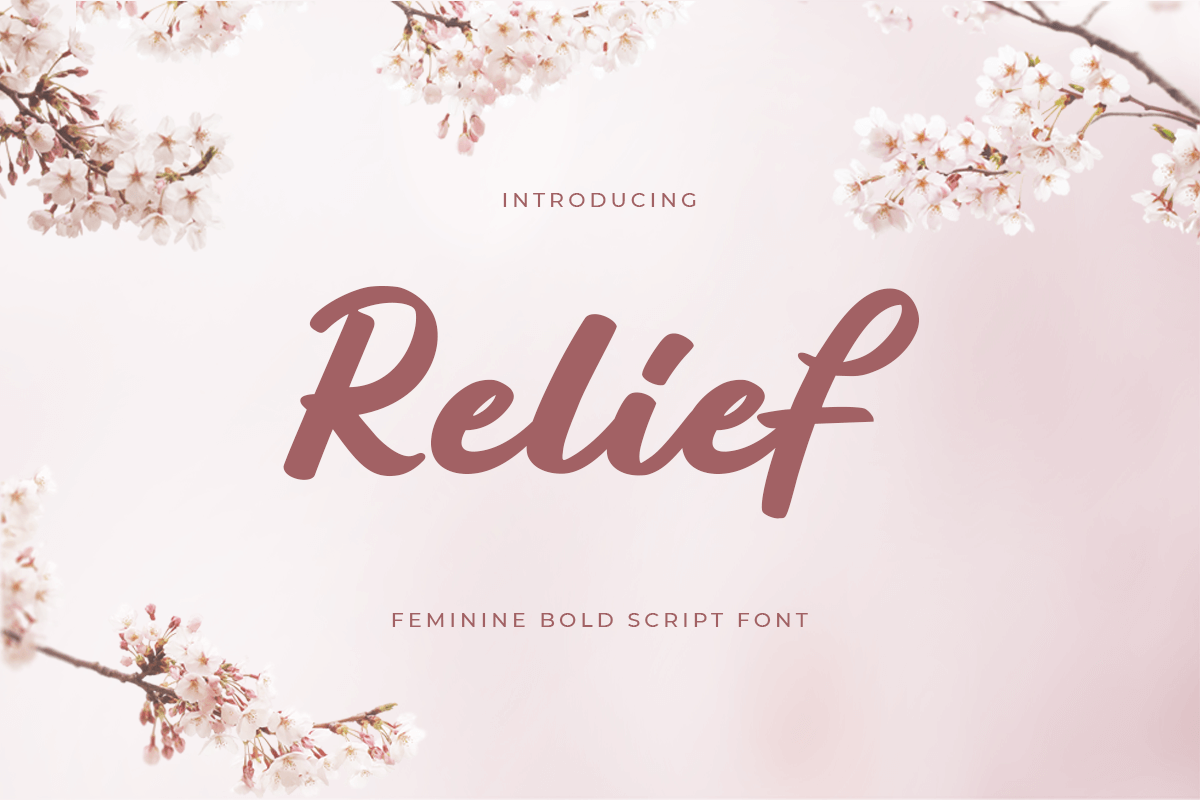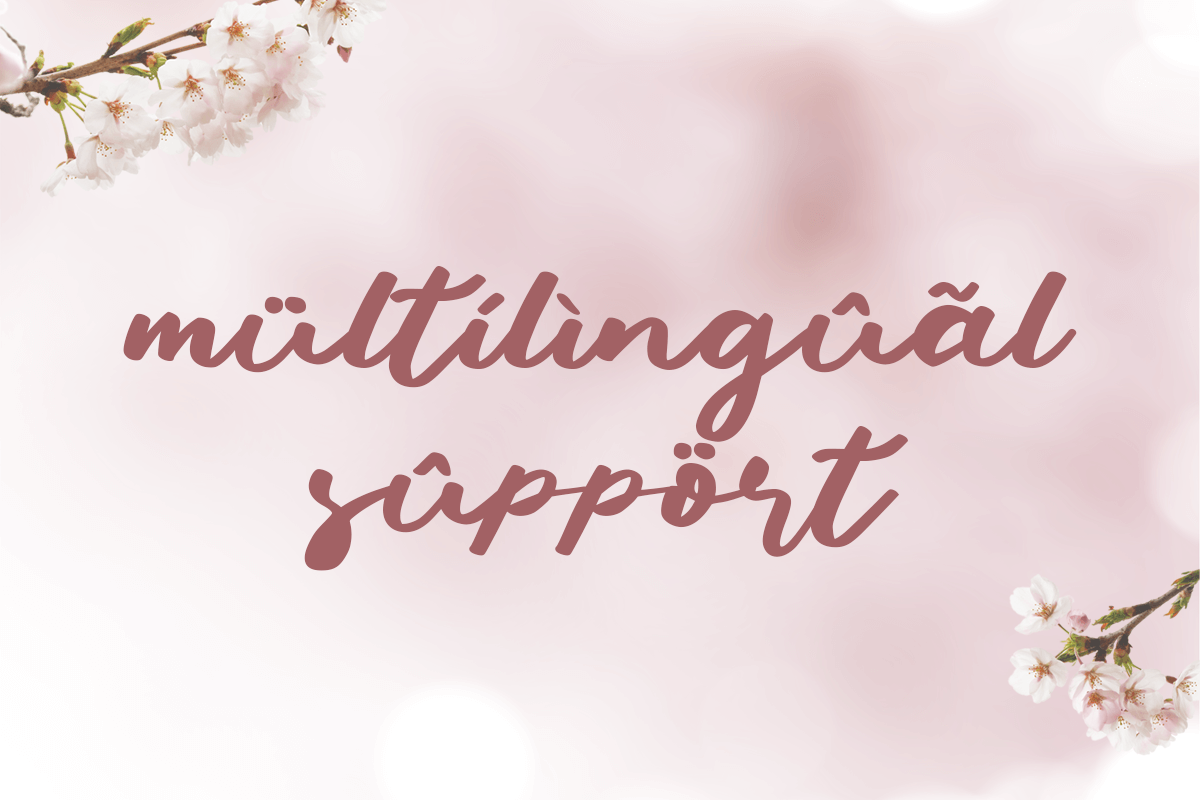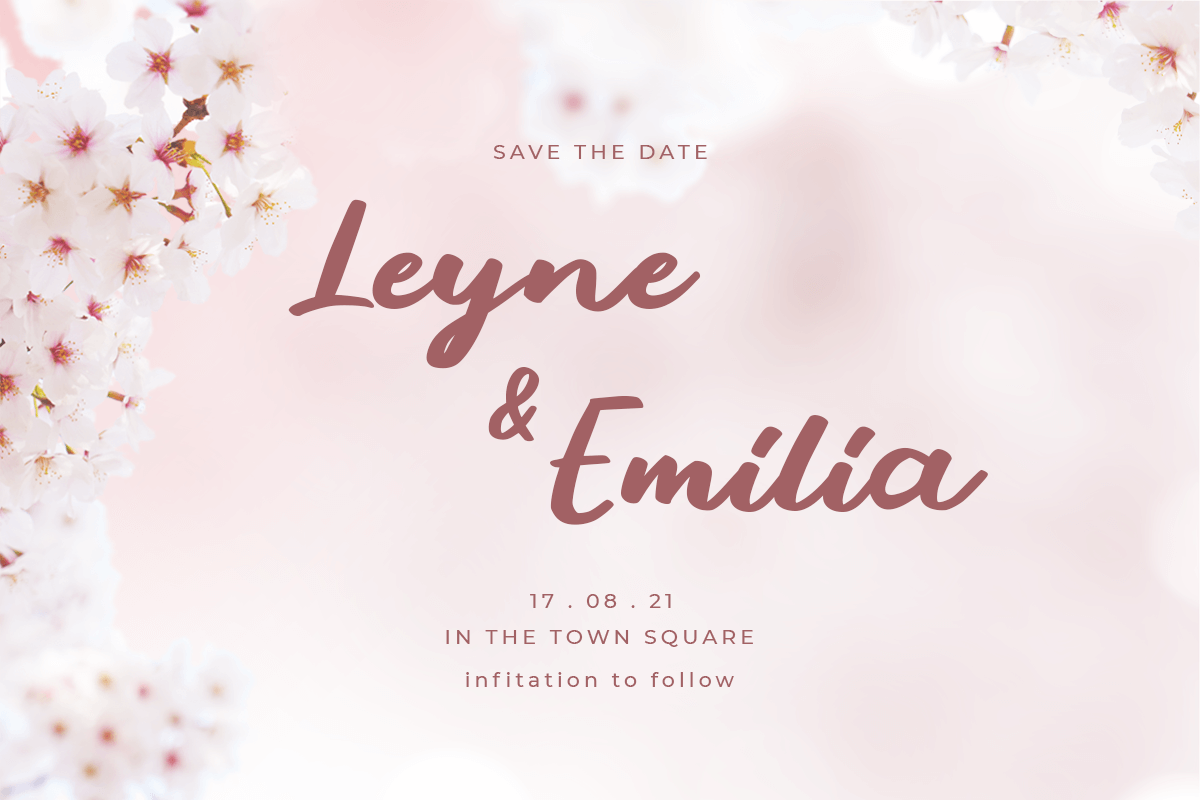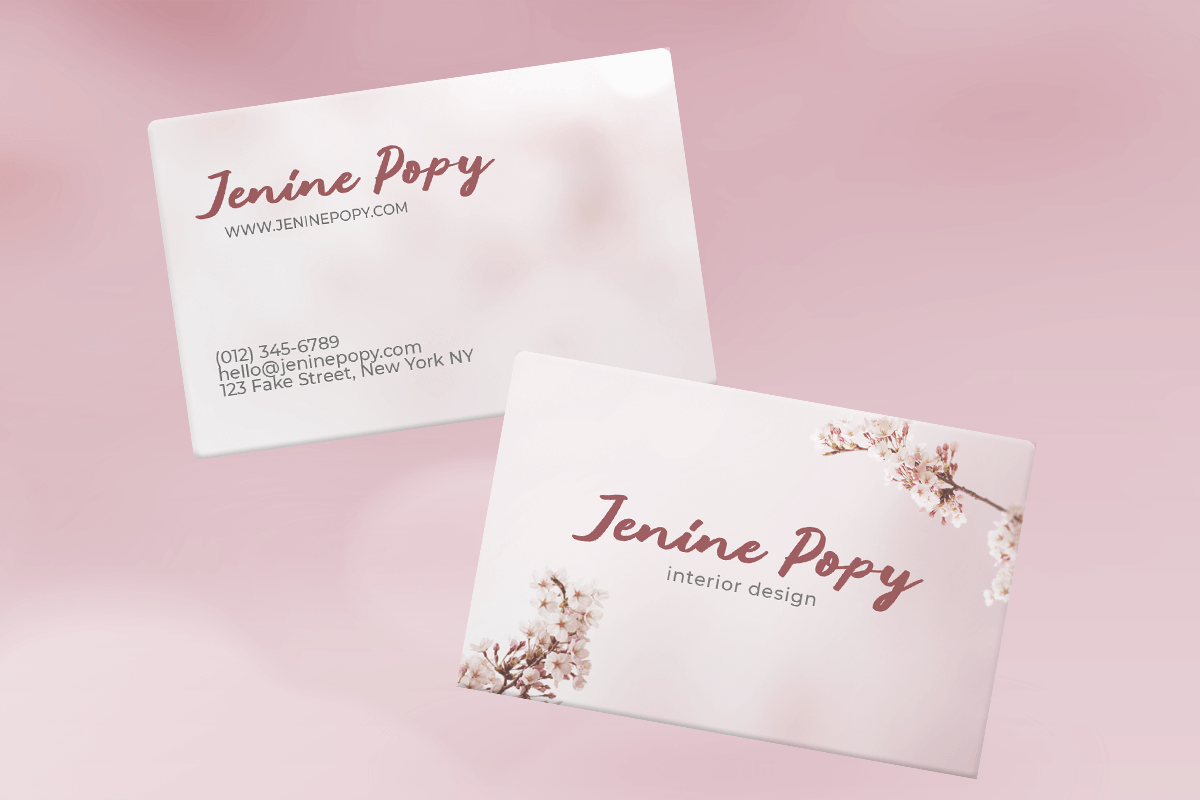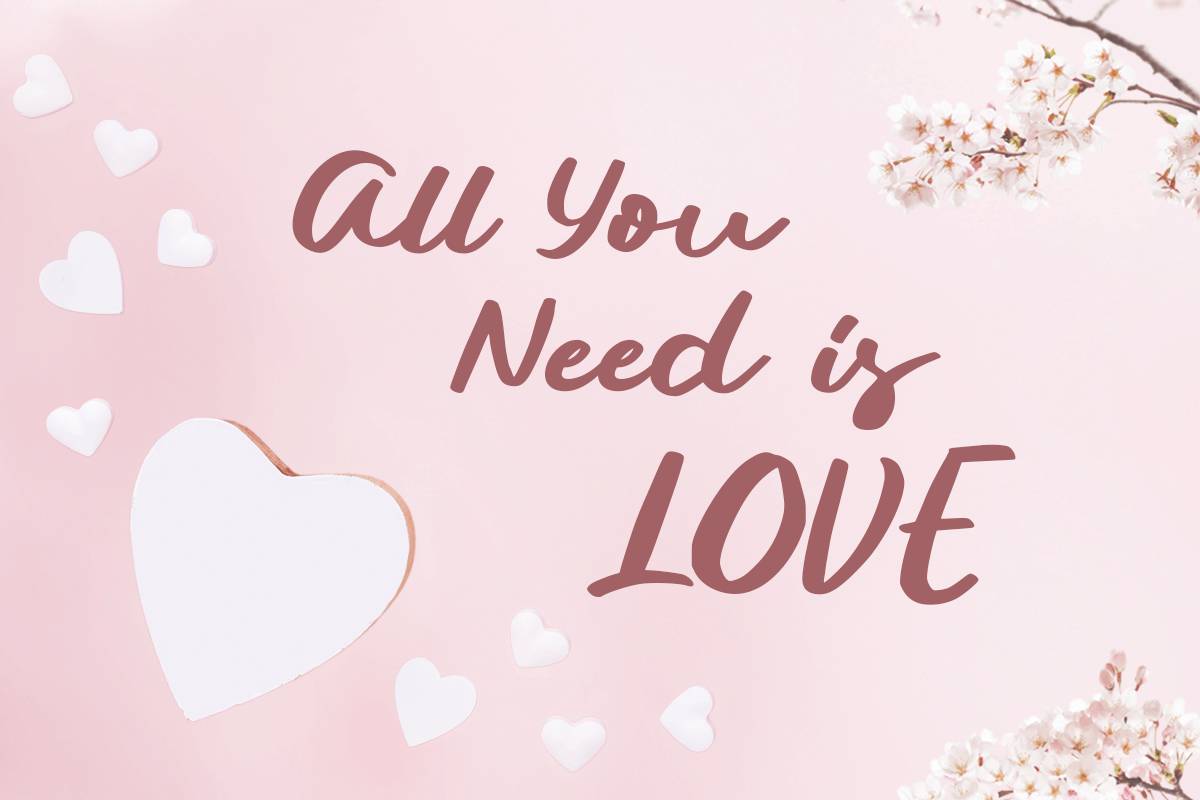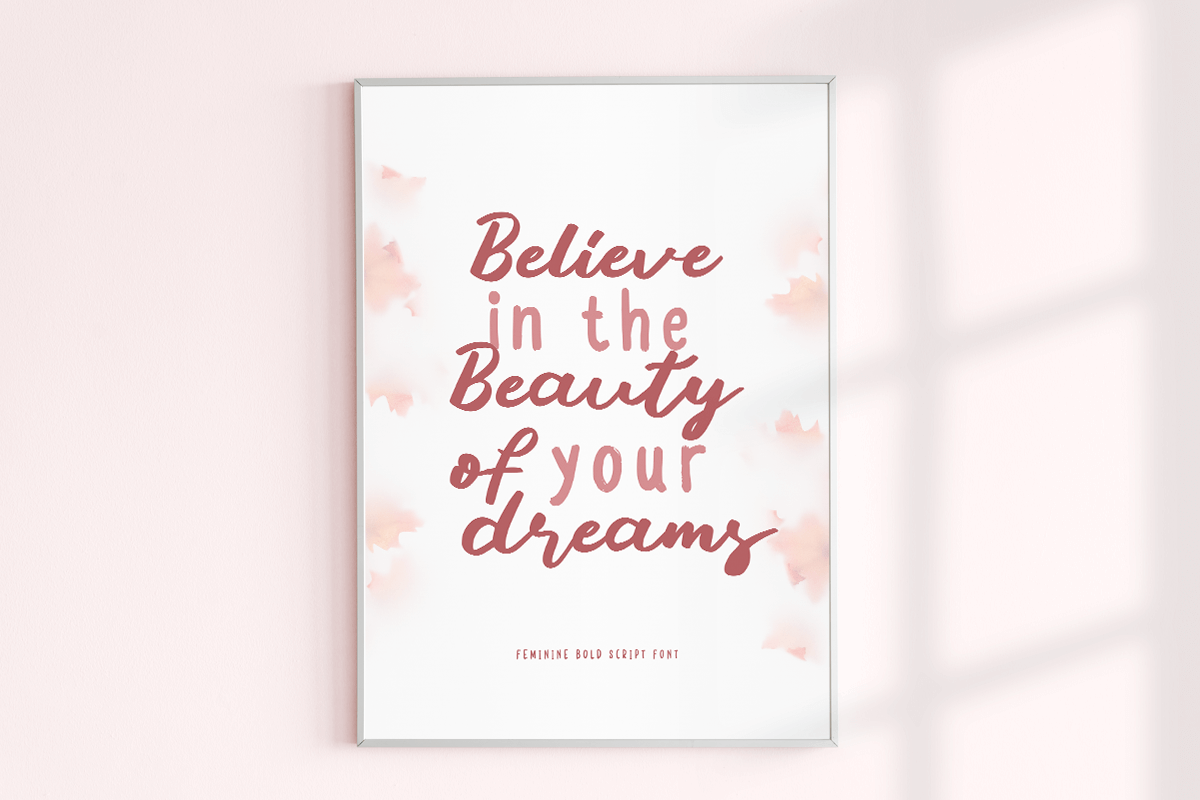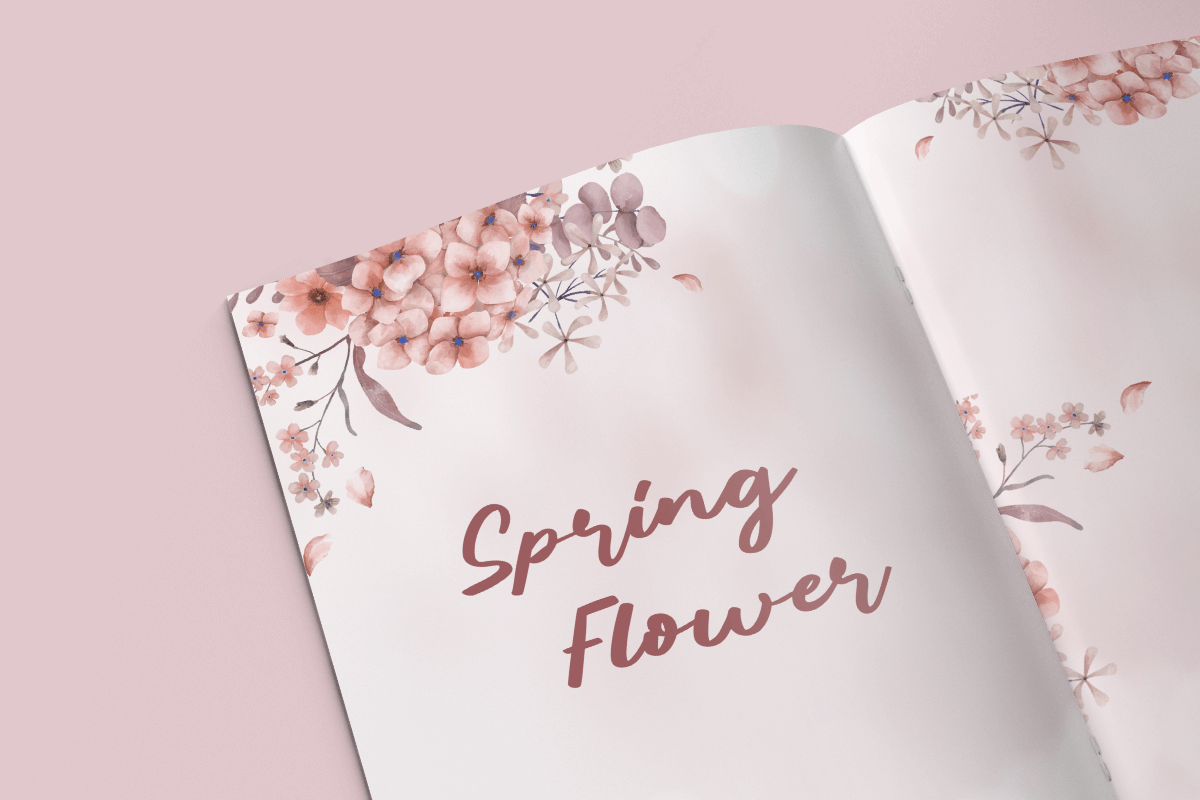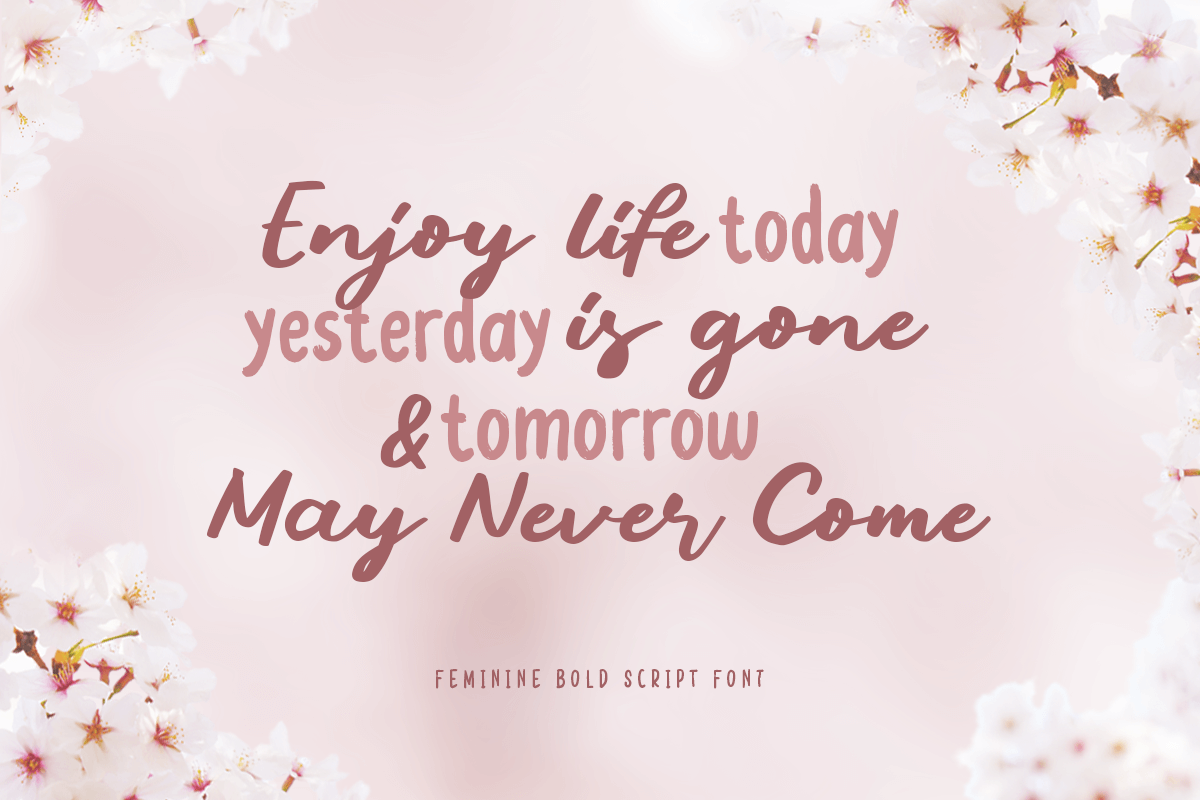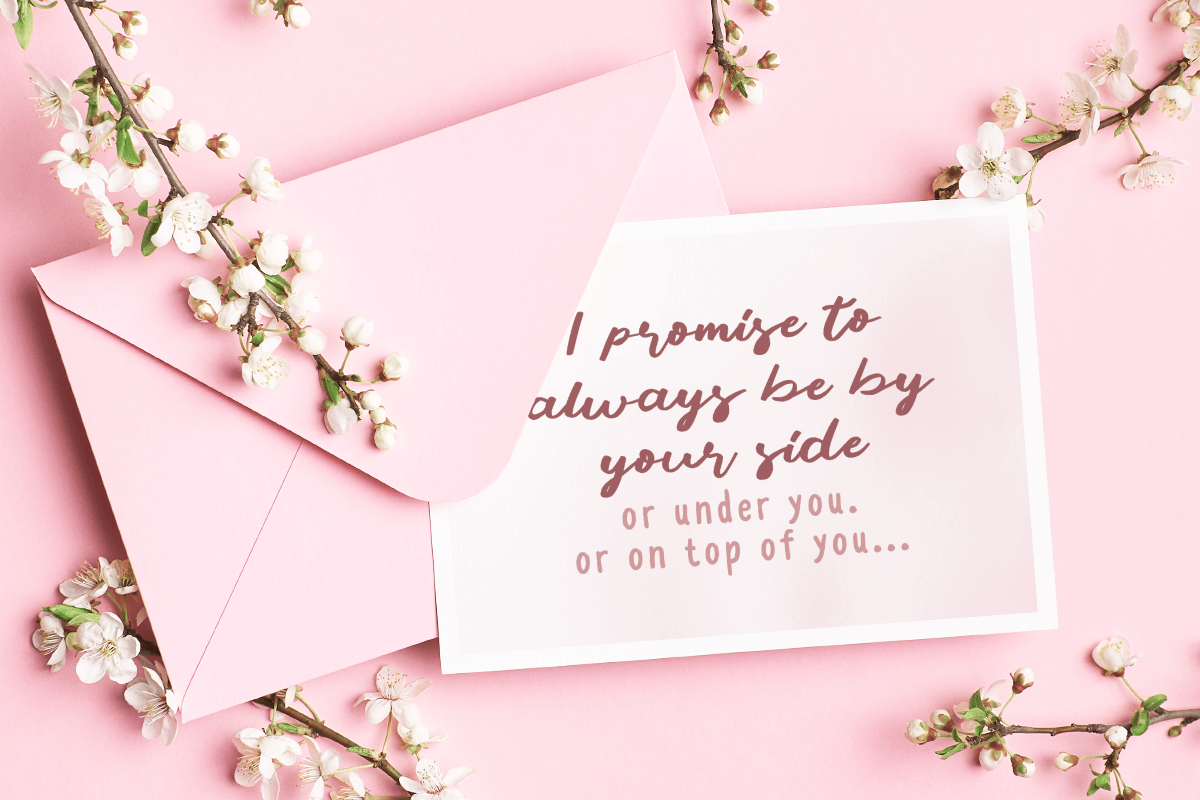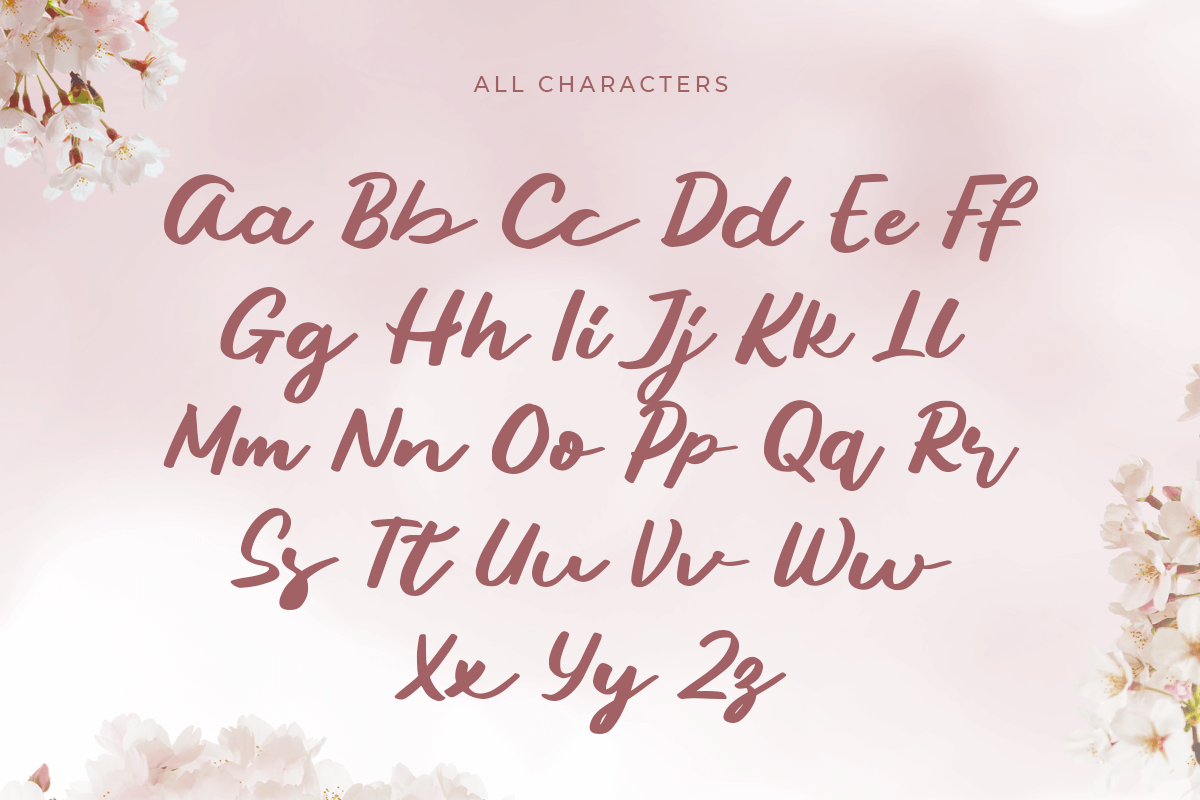
Relief
-Feminine Bold Script Font
Relief a Feminine Bold Script Font. Inspired from beauty and feminine style very good for signature, stationery, logo, typography quotes, magazine or book cover, website needs.